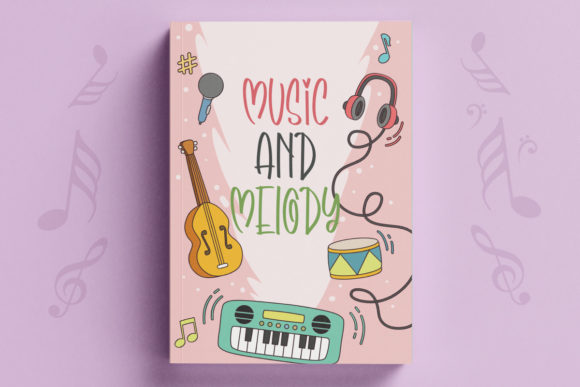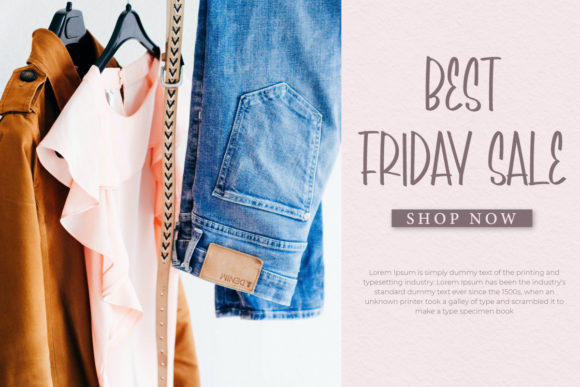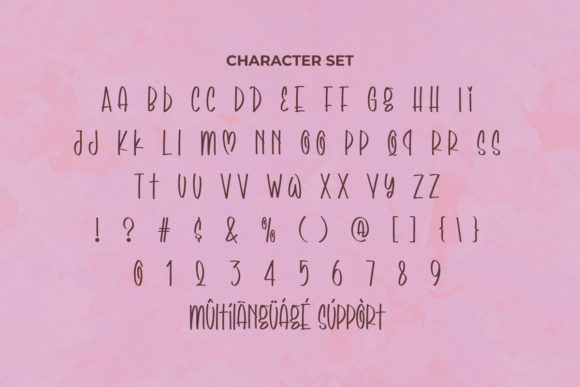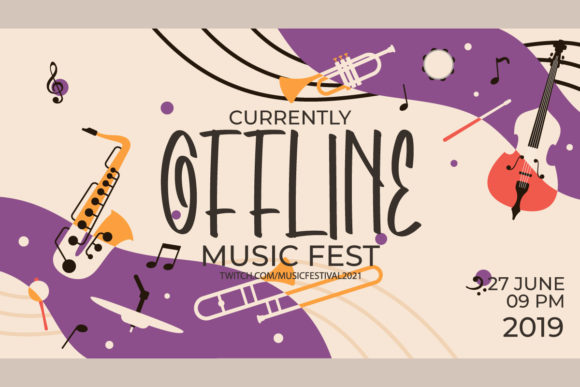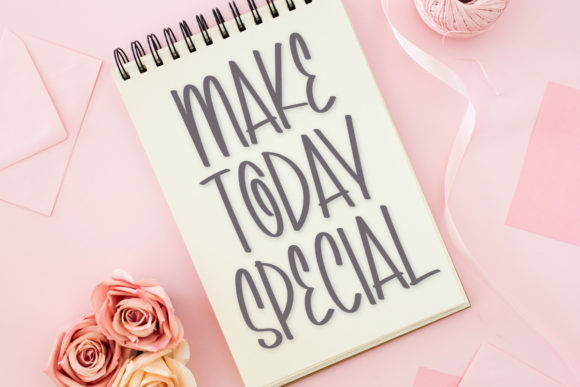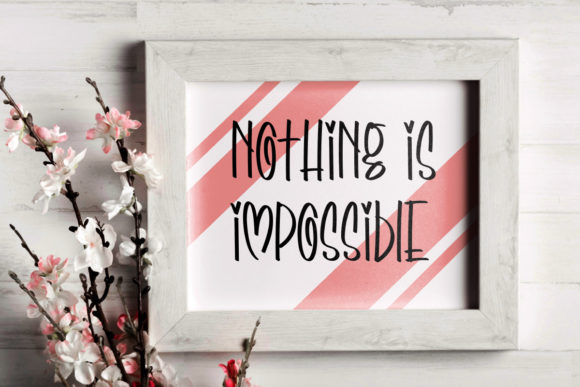
Cute Symphony Font
About Cute Symphony Font
Introducing “Cute Symphony,” a beautiful script font that brings a harmonious and charming touch to your creative projects. With its delightful and playful aesthetic, Cute Symphony is a versatile font suitable for a wide range of applications.
Whether you’re working on blog posts, logos, branding, ads, invitations, greeting cards, planners, photo albums, decorations, or any other project, Cute Symphony adds a whimsical and endearing quality to your designs. The script style of this font exudes cuteness and creates a visually appealing and joyful text.
In blog posts and ads, Cute Symphony becomes a captivating element that adds a playful and delightful vibe. Logos and branding benefit from the font’s beautiful script, offering a lively and memorable visual identity. Invitations and greeting cards take on a cheerful charm, setting a positive and upbeat tone for any occasion.
Planners and photo albums come alive with the addition of Cute Symphony, infusing your layouts with a sense of fun and creativity. Decorations, whether for digital or print applications, acquire a lovable and appealing quality, making any space or design more delightful.
Cute Symphony stands out as more than just a font—it’s a design tool that brings a sense of joy and playfulness to your projects. Its adaptability and adorable style make it a valuable asset for various creative endeavors. Choose Cute Symphony to infuse your designs with a touch of cuteness and charm, turning each project into a visually delightful and memorable piece of art.